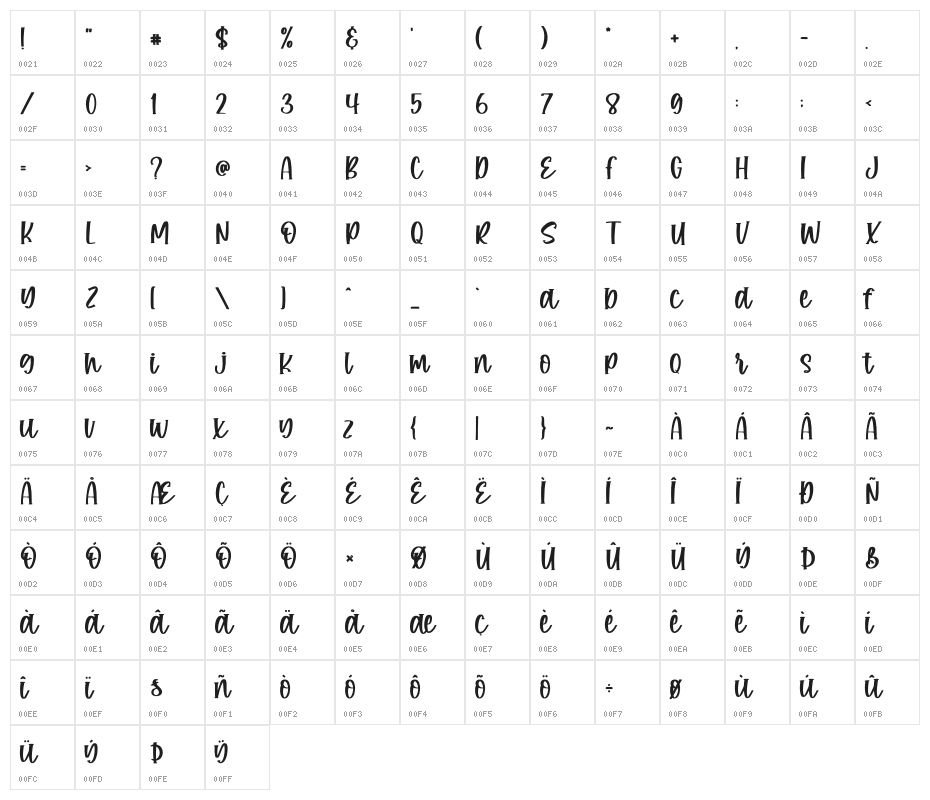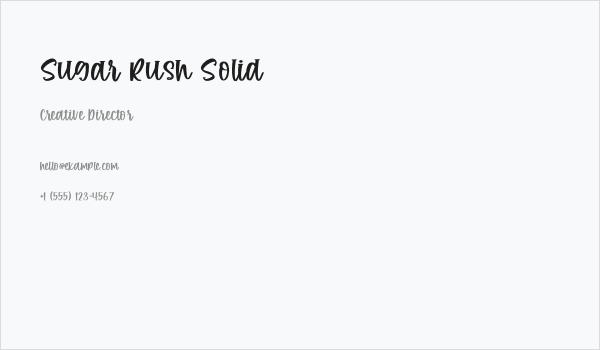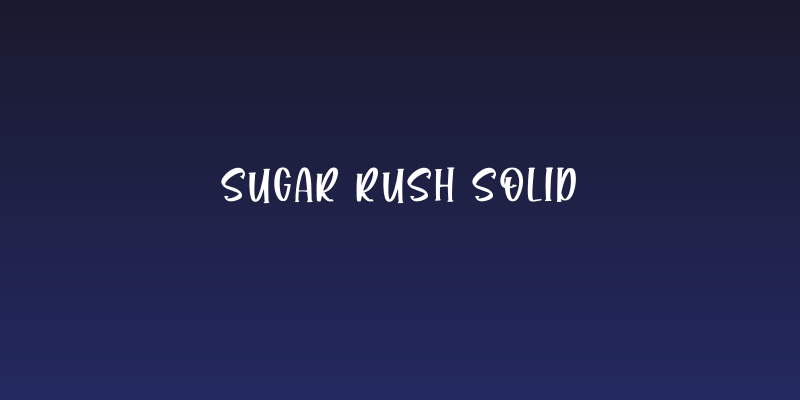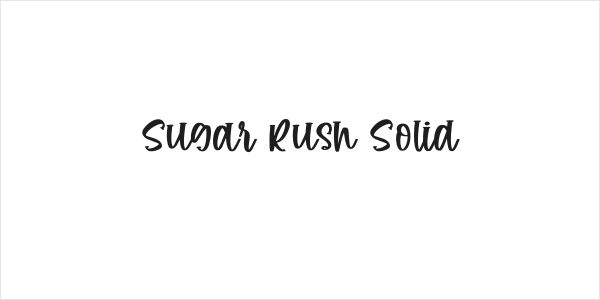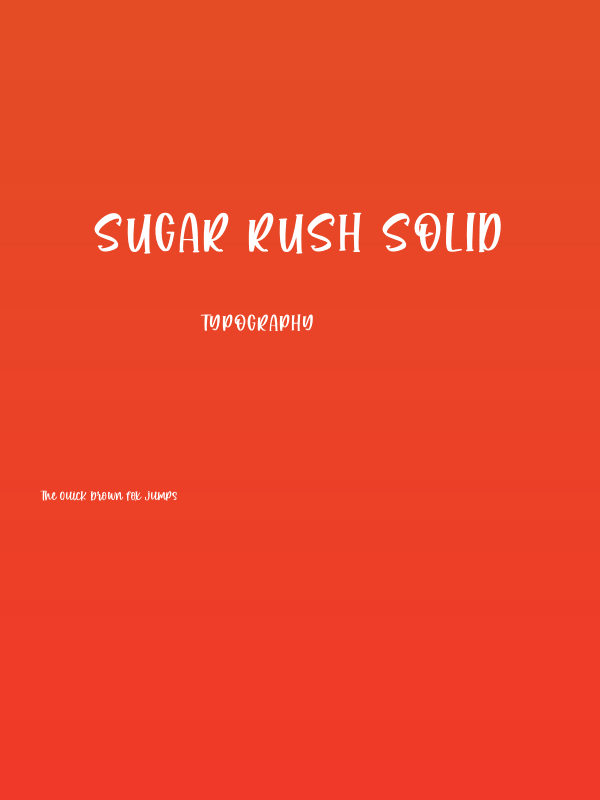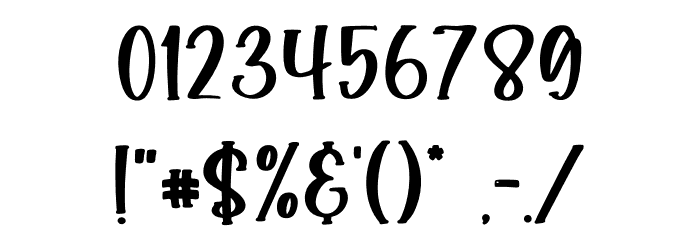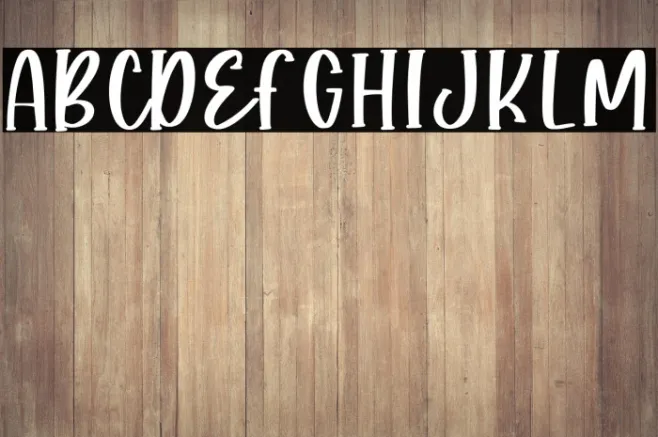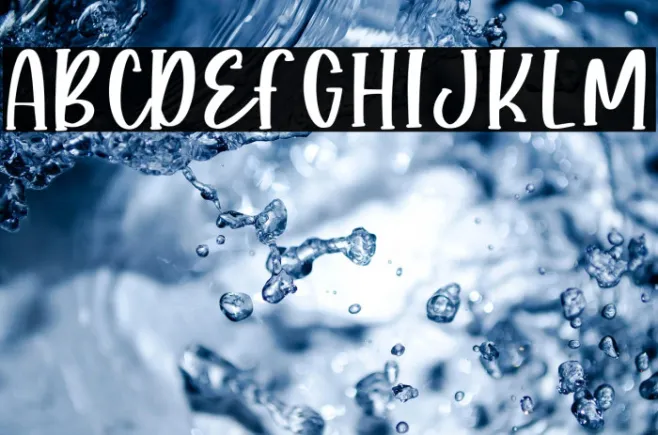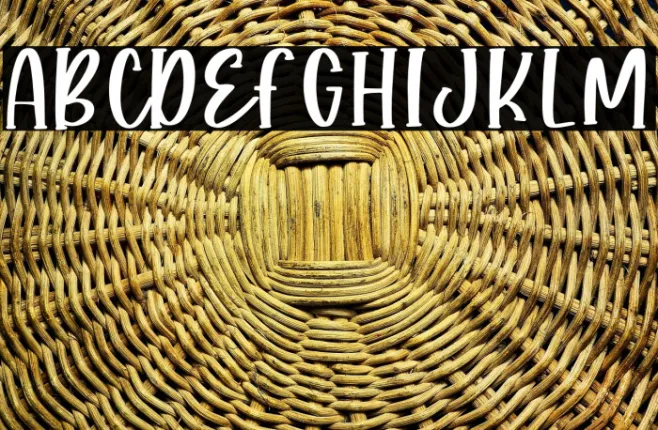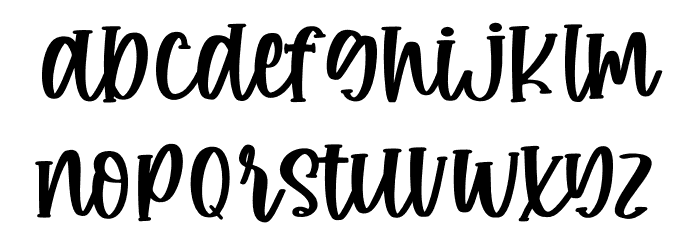
Sugar Rush Solid Font
Sugar Rush Solid Description
This font exudes a playful and energetic vibe, characterized by its bold and curvy letterforms. The uppercase and lowercase letters are crafted with a sense of movement, featuring smooth curves and a slightly whimsical style. The numbers and special characters maintain this lively aesthetic, ensuring consistency across all glyphs. The strokes are thick, providing a strong visual impact, while the overall design remains legible and approachable. This font is perfect for projects that require a touch of fun and creativity, making it ideal for children's books, playful branding, or eye-catching headlines.
| Use Case | Headlines, Logos, Creative designs |
| Proposed Projects | Ideal for children's books, playful branding, eye-catching headlines, and creative designs. |